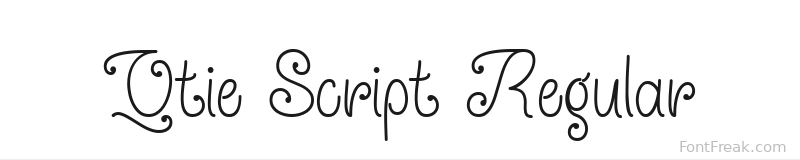
Qtie Script Regular
About Qtie Script Regular
Qtie Script Regular is a charming script font designed by Misti Hammers, characterized by its elegant, flowing strokes that evoke a sense of warmth and personality. This font falls within the script category, showcasing a handwritten style that is both approachable and sophisticated. The stroke weight varies gently throughout the characters, providing a delightful contrast that captures attention without overwhelming the viewer. Its generous spacing allows for readability while maintaining the whimsical essence typical of script fonts, making it an excellent choice for various design applications.
Qtie Script Regular is particularly well-suited for wedding invitations, where its romantic flair can enhance the overall aesthetic. Additionally, it excels in creating eye-catching signage for boutique shops, restaurant menus that aim for a personal touch, and personalized greeting cards that require a unique handwriting effect. Content creators and graphic designers will find this font invaluable when looking to convey a sense of authenticity and charm in their projects.
What truly sets Qtie Script Regular apart is its ability to blend playfulness with elegance. The careful craftsmanship evident in its design not only makes it visually appealing but also allows it to resonate with a broad audience. This font’s distinctive character and versatility make it a must-have in any designer's toolkit, and with the Qtie Script Regular font free download, you can easily incorporate this delightful typeface into your next creative endeavor.